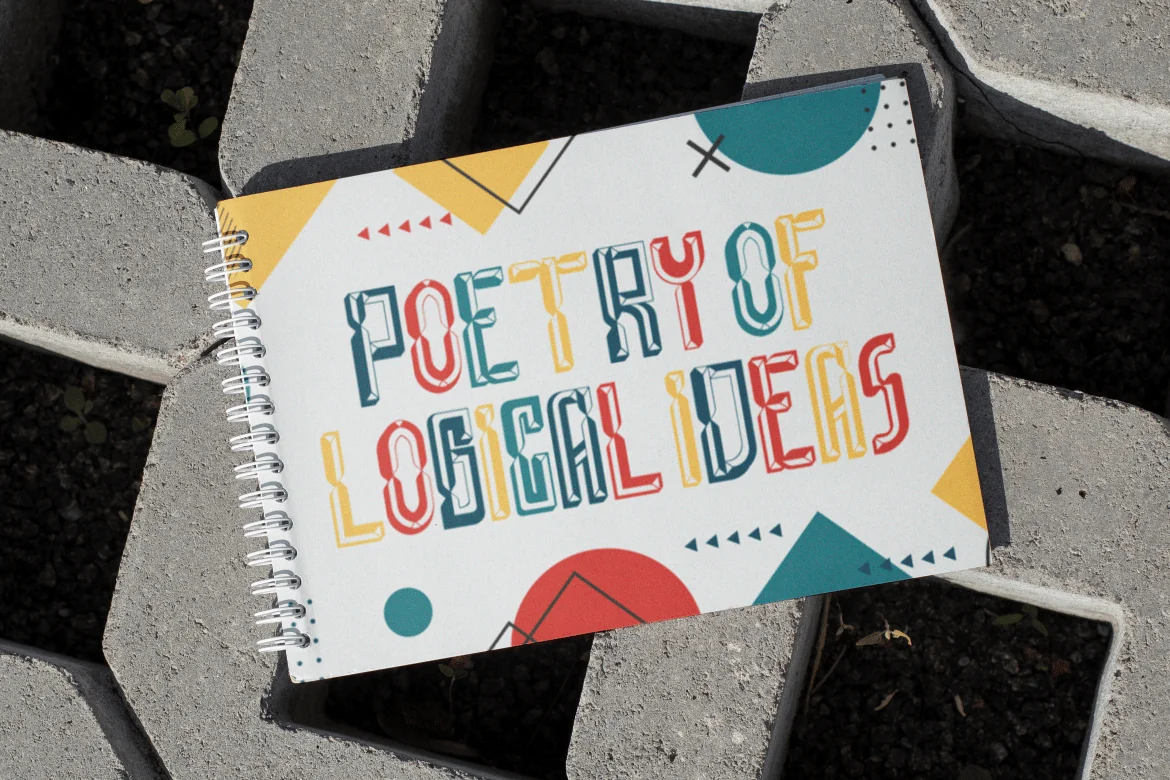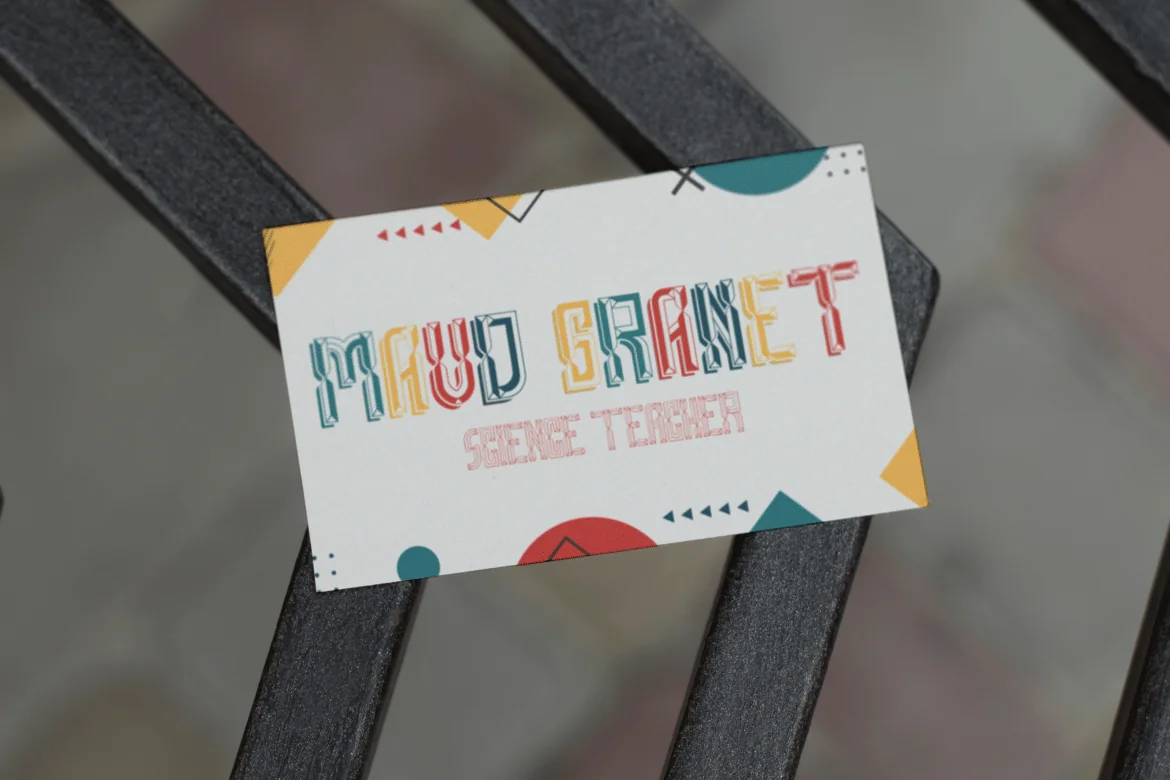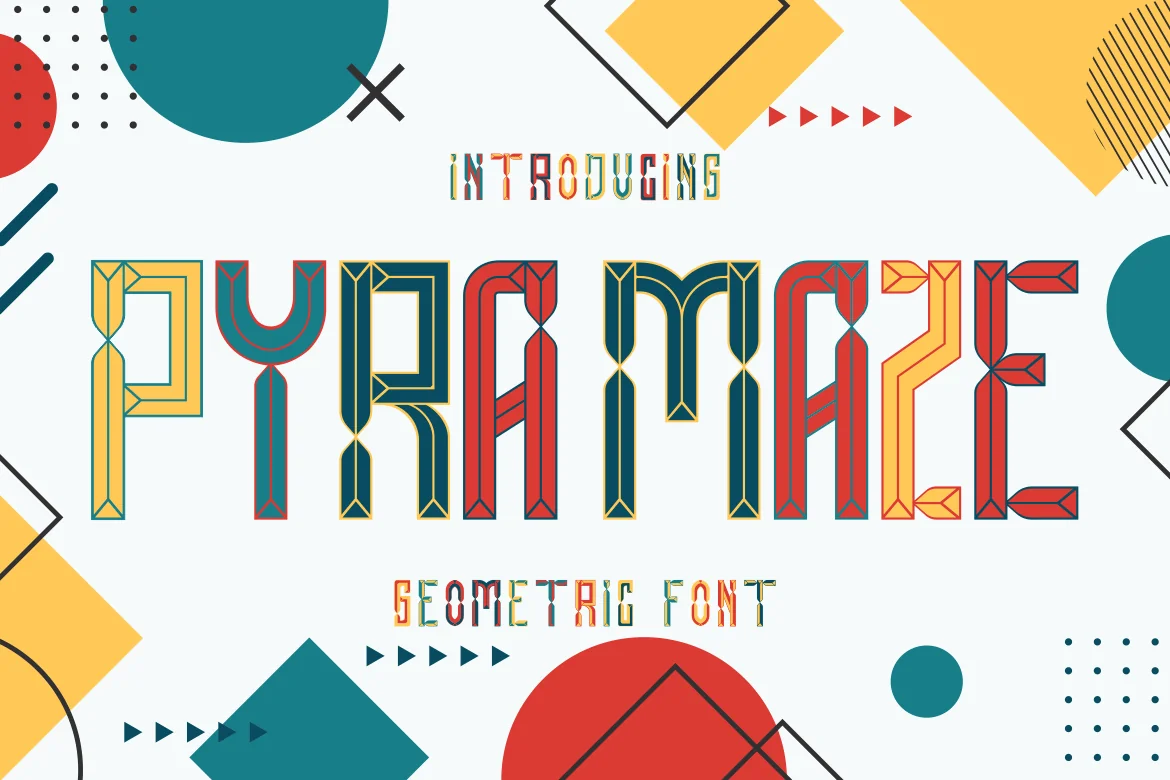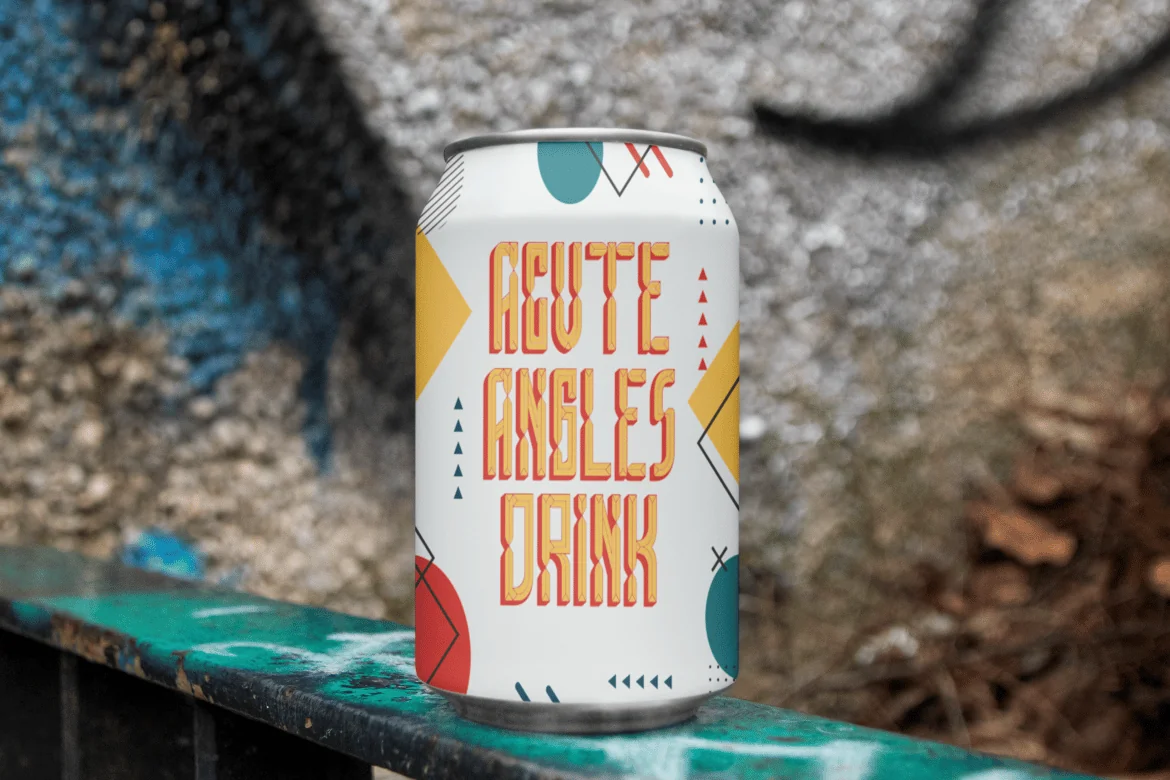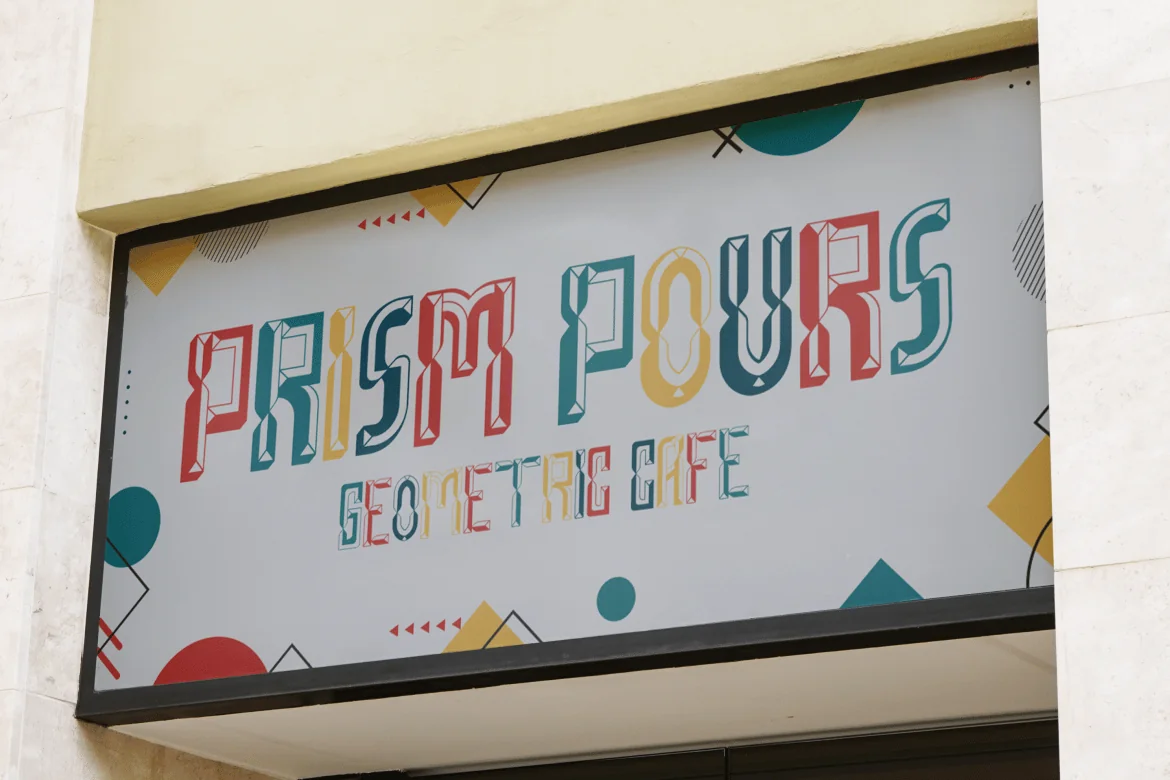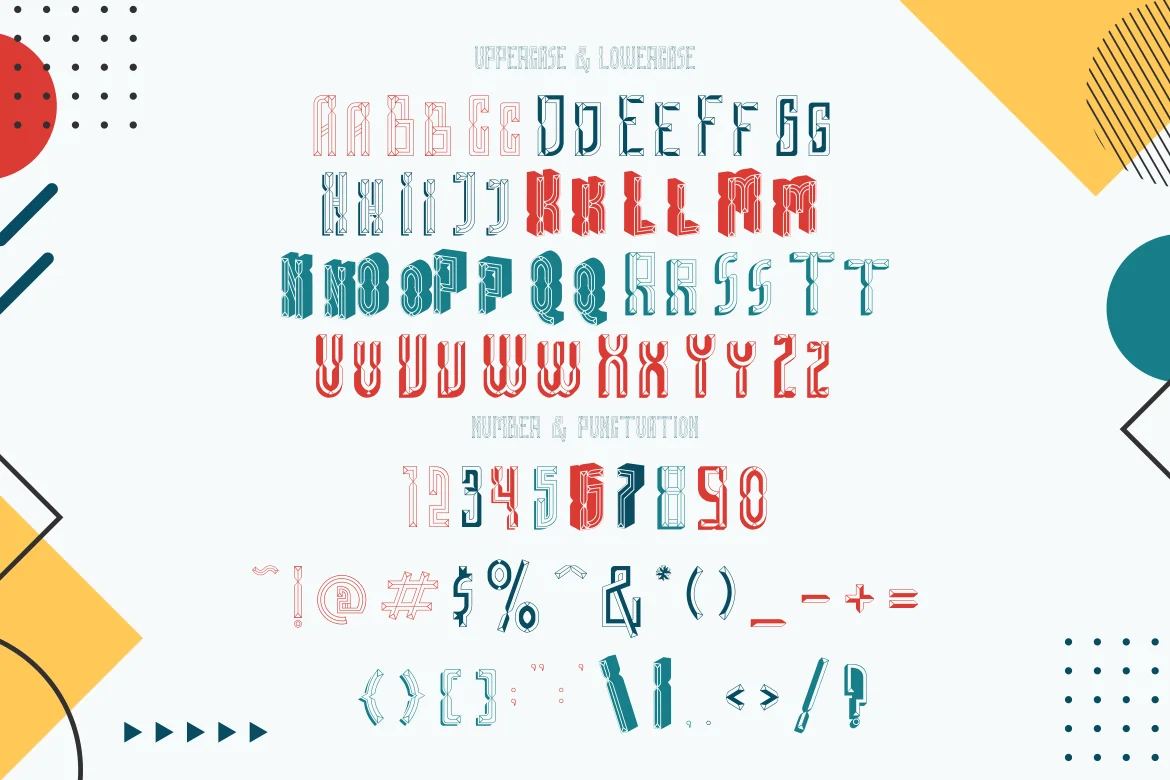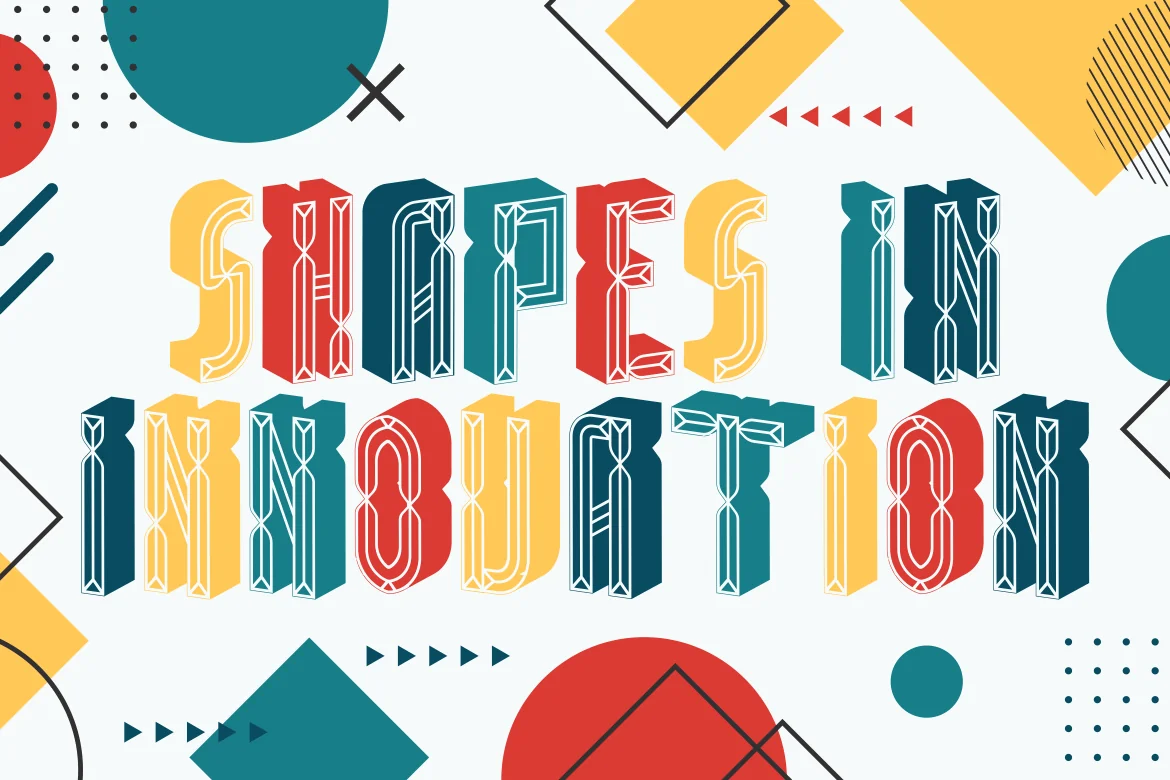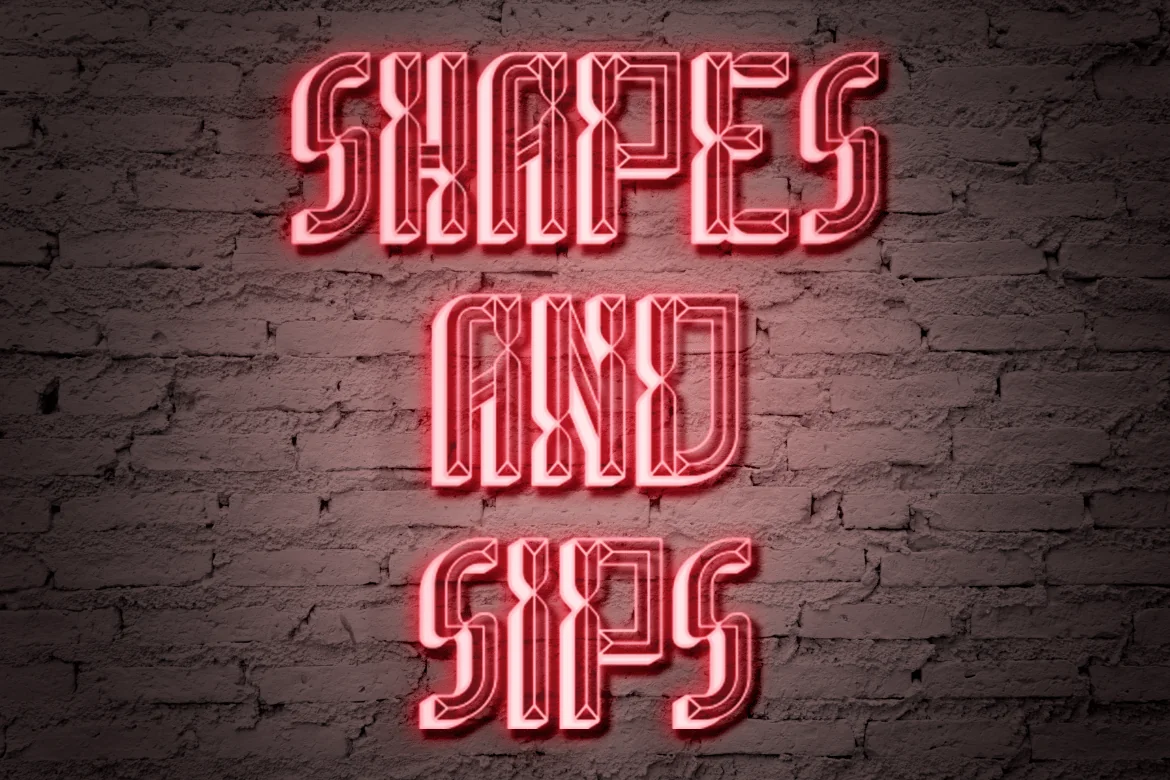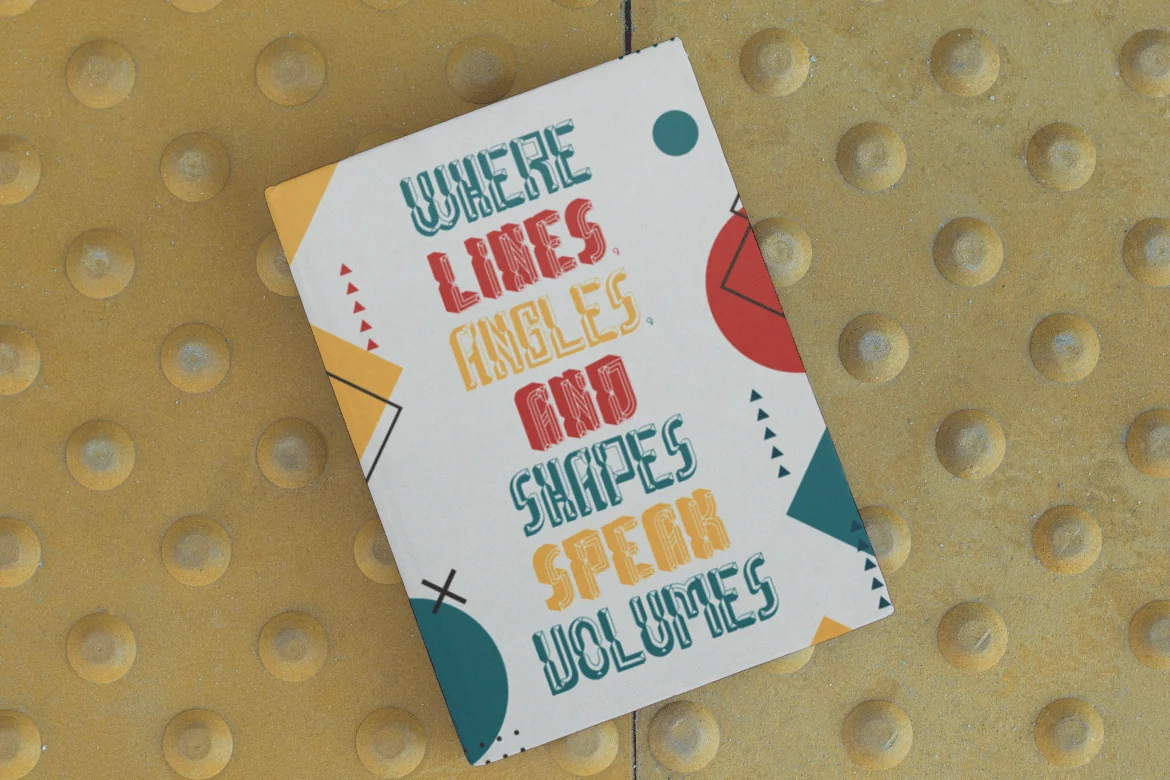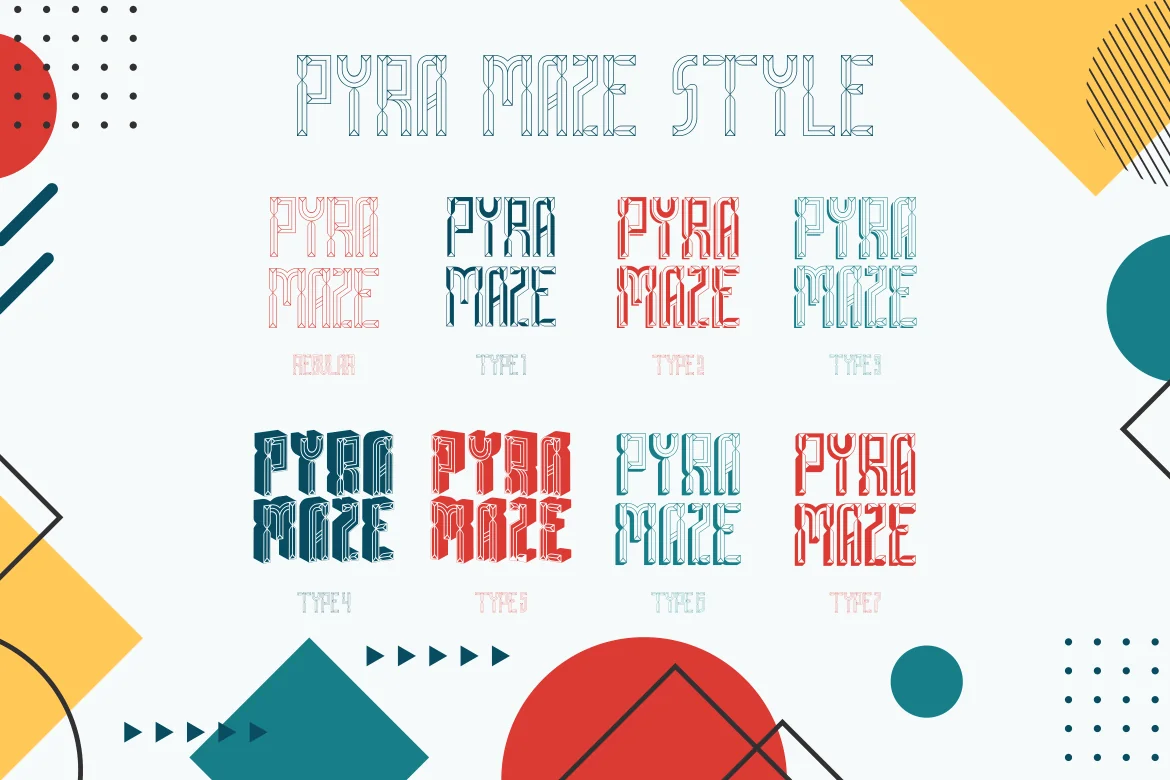
Pyra Maze – Geometric Font
Embark on a visual journey with Pyra Maze – Geometric Font, where every letter is a labyrinth of creativity. This display font is a celebration of geometry, with each character crafted from a series of lines and shapes that interlock like a meticulously designed maze. The font’s linear structure and symmetrical precision make it a standout choice for designers seeking to infuse their work with a sense of order and innovation. Pyra Maze is more than a font; it’s a design tool that turns the ordinary into the extraordinary, ideal for logos that require a modern twist, branding that aims to break the mold, and any creative project that desires a font with a geometric heart.
With Pyra Maze, your designs will resonate with an audience looking for something different. This font’s versatility makes it suitable for a wide range of applications, from crafting unique invitations to creating striking packaging. It’s perfect for posters that need to capture attention, titles that demand to be read, and business materials that want to convey a cutting-edge image. Whether it’s for greeting cards that charm, stickers that stick in the mind, children’s books that inspire, or magazines that push the boundaries of design, Pyra Maze is the key to unlocking a world of geometric beauty.